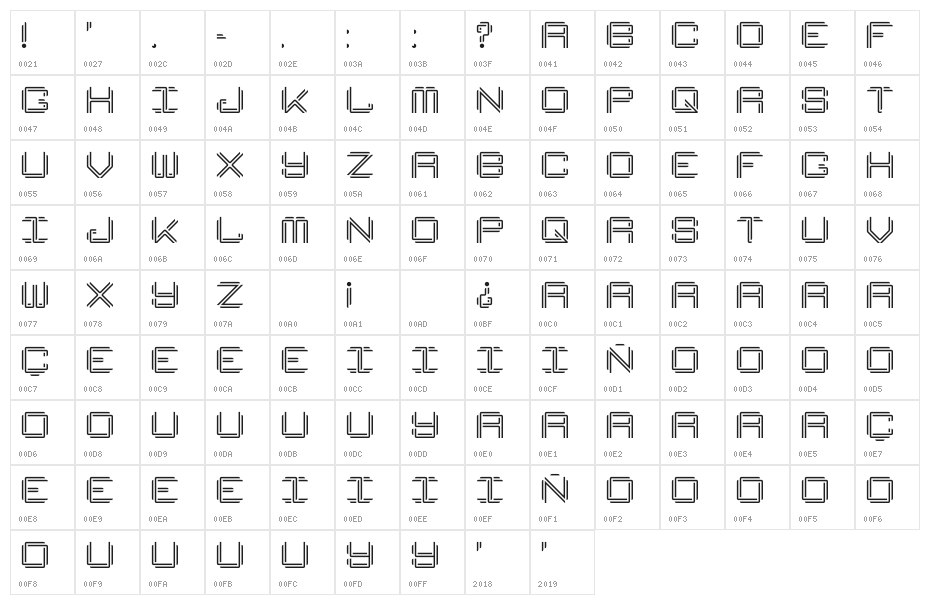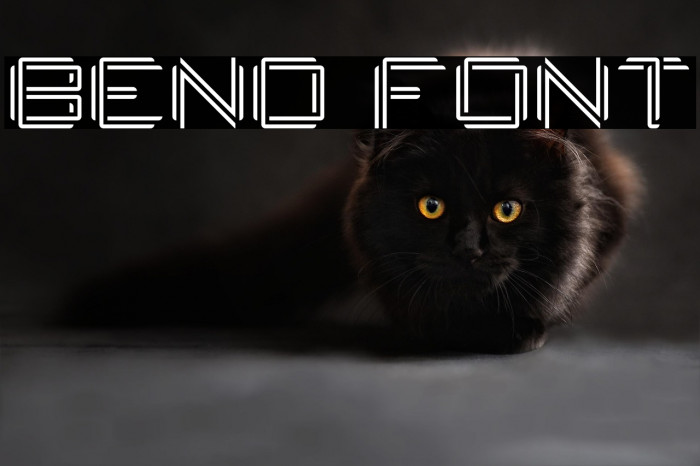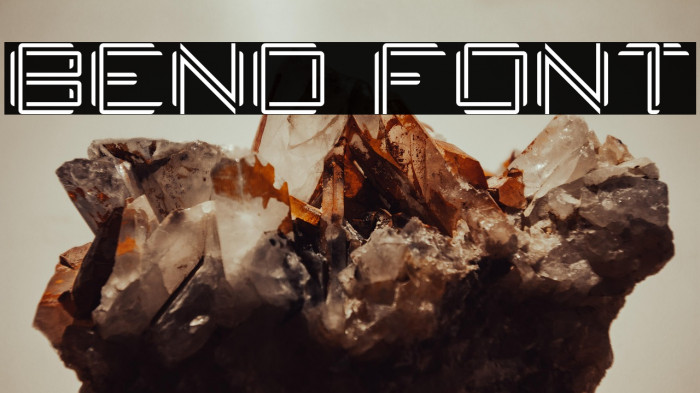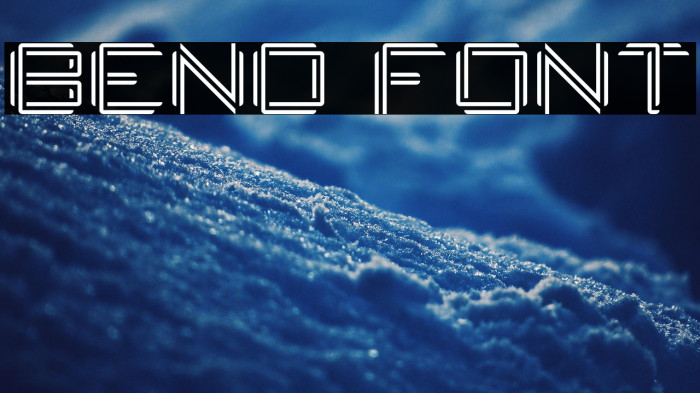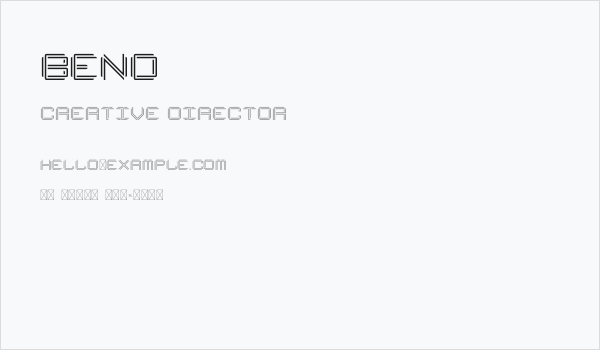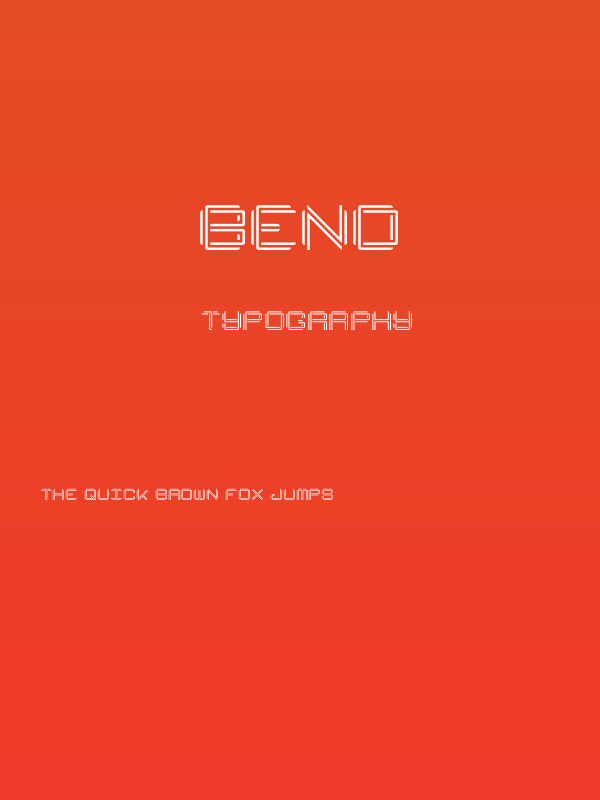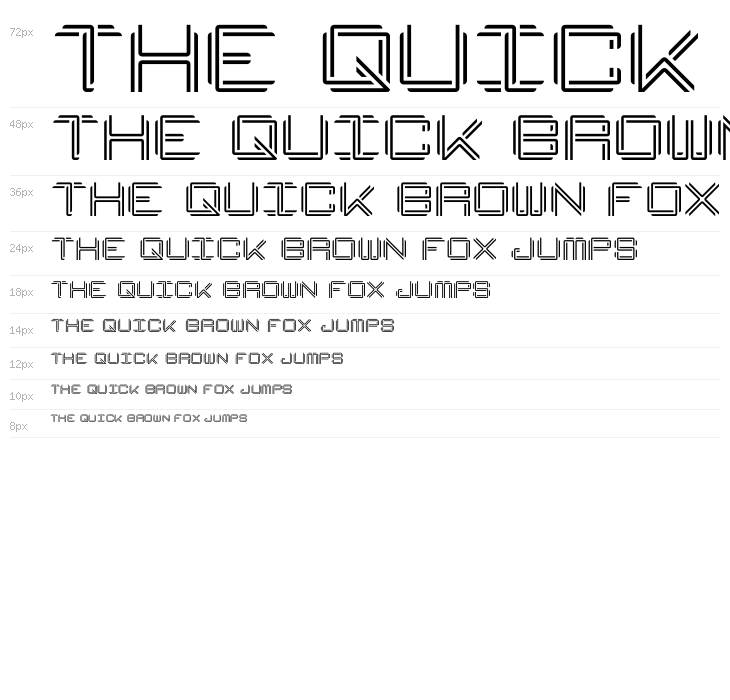
Bend Font
Bend Description
This font features a unique geometric design with a futuristic and industrial feel. The characters are constructed with bold, angular lines that create a sense of movement and energy. Each letter is composed of multiple parallel lines, giving it a layered and dimensional appearance. The font maintains a consistent structure across both uppercase and lowercase letters, providing a cohesive look. The numerals and special characters follow the same design principles, ensuring uniformity throughout. Its distinct style makes it stand out, ideal for projects that require a modern and edgy aesthetic.